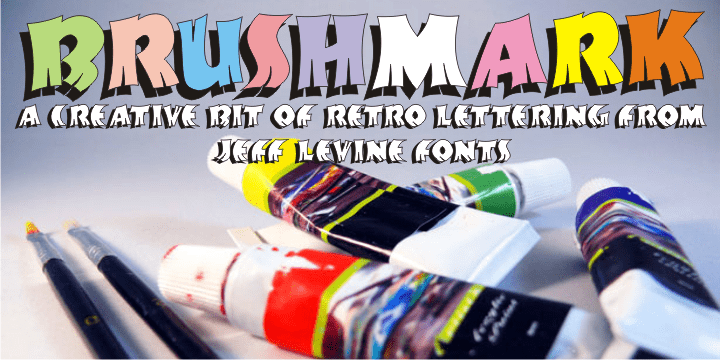
Brushmark
A 1940s edition of the Speedball® Lettering Pen instruction book yielded the design that Brushmark JNL is based on. This lettering also lends itself to projects with tropical or jungle themes.
Brushmark JNL Regular by Jeff Levine Fonts